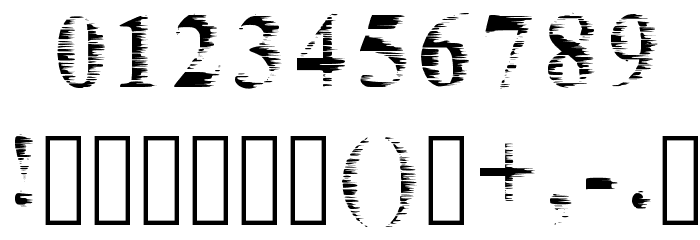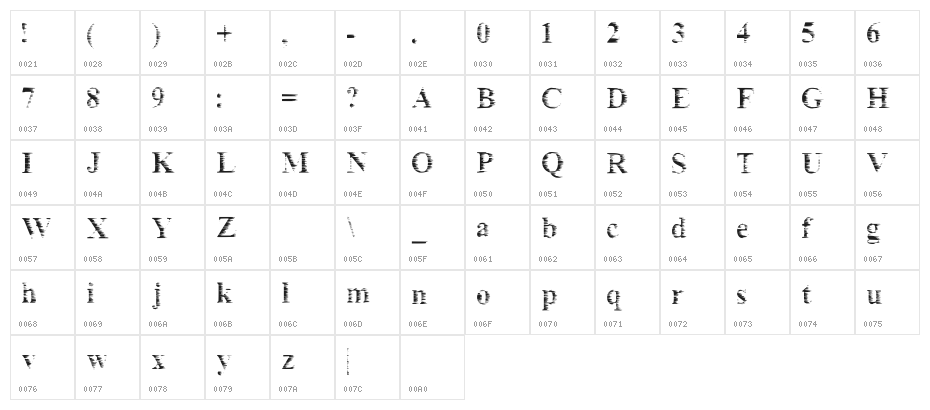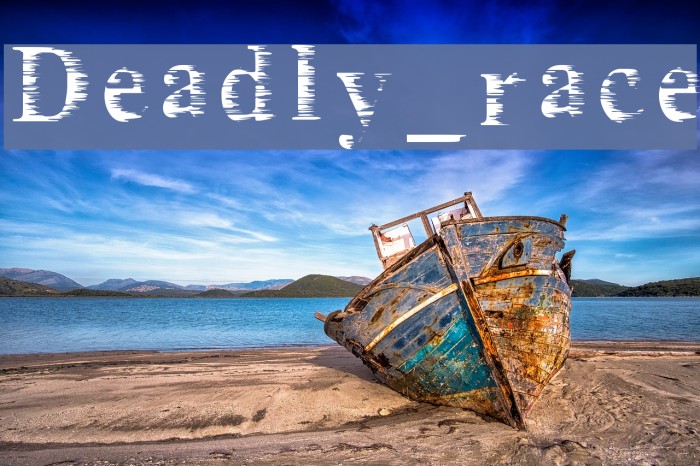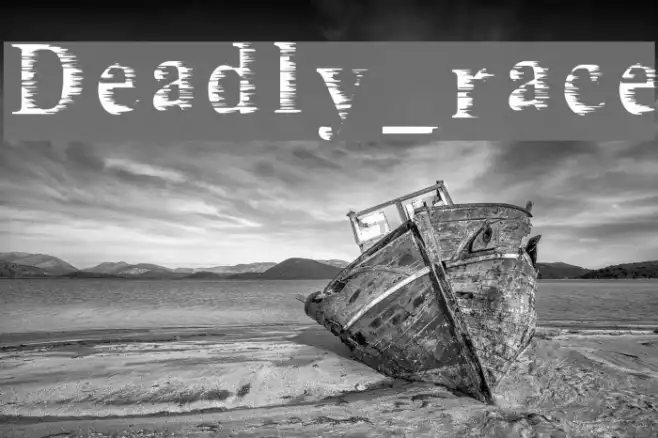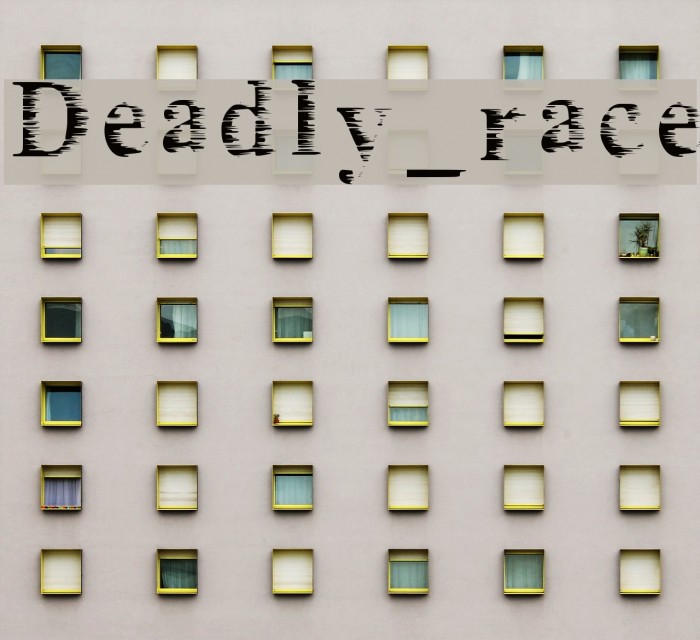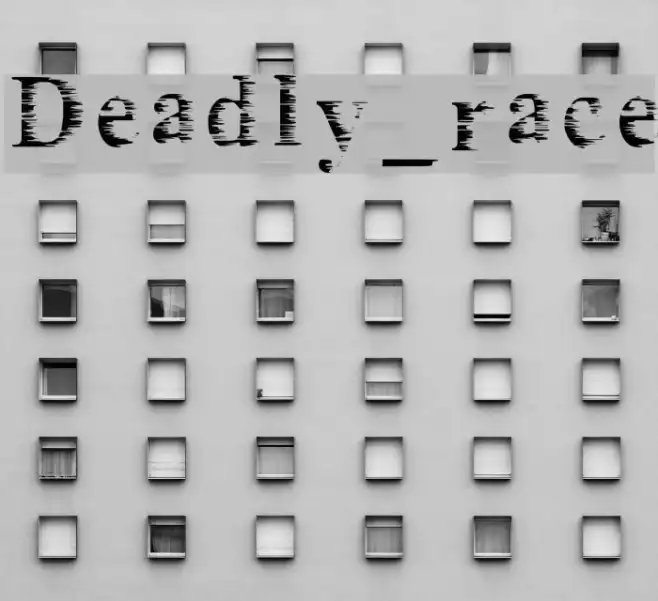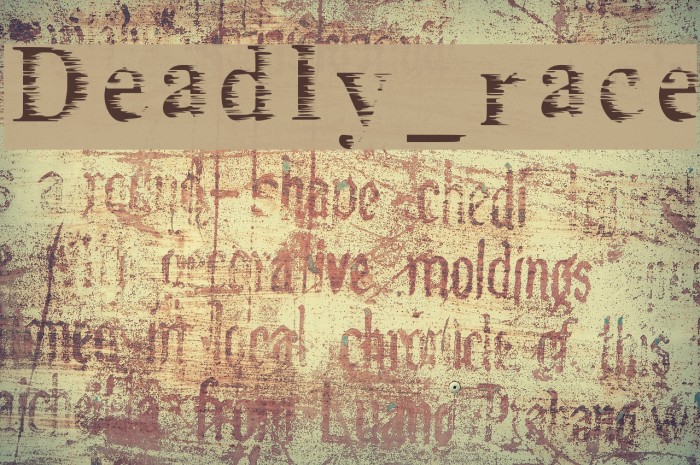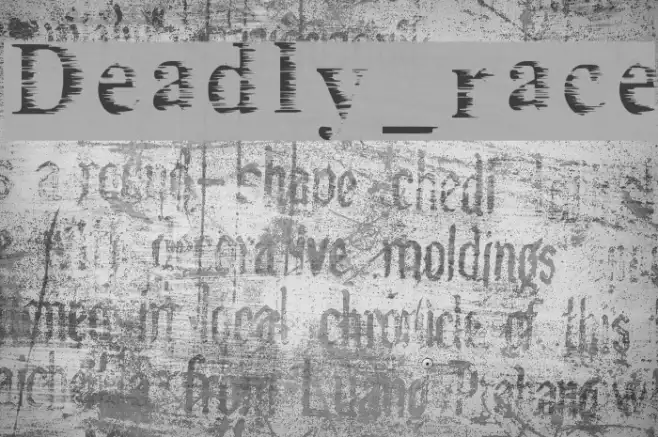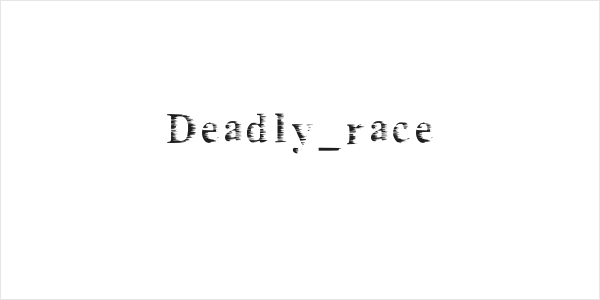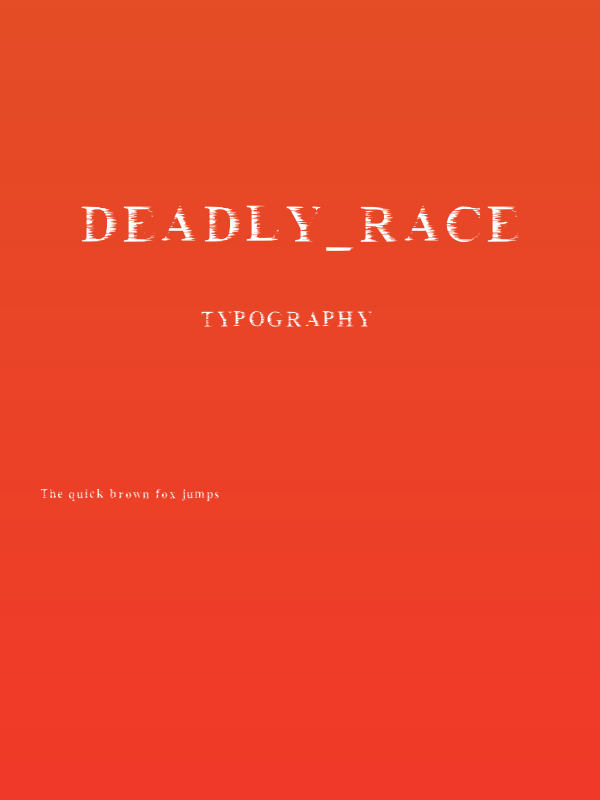
Deadly_race Font
Deadly_race Description
This font features a dynamic and edgy design with a distressed, scratched effect across each character. The uppercase and lowercase letters, as well as numbers, exhibit a consistent pattern of horizontal lines cutting through the characters, giving a sense of motion and energy. The style is bold and impactful, making it suitable for attention-grabbing designs. The special characters maintain the same distressed aesthetic, ensuring uniformity across all glyphs. This font's unique appearance is ideal for projects that require a gritty, urban feel.
| Overall Style | Modern, Edgy |
| Proposed Projects | Ideal for posters, album covers, video game graphics, and edgy branding projects. |